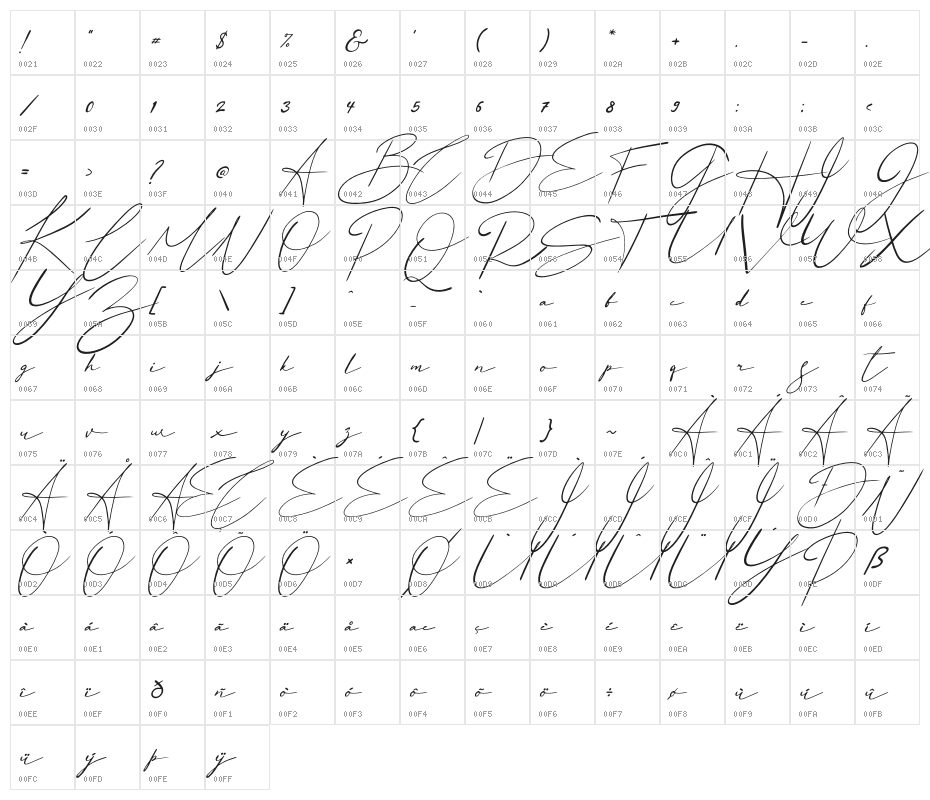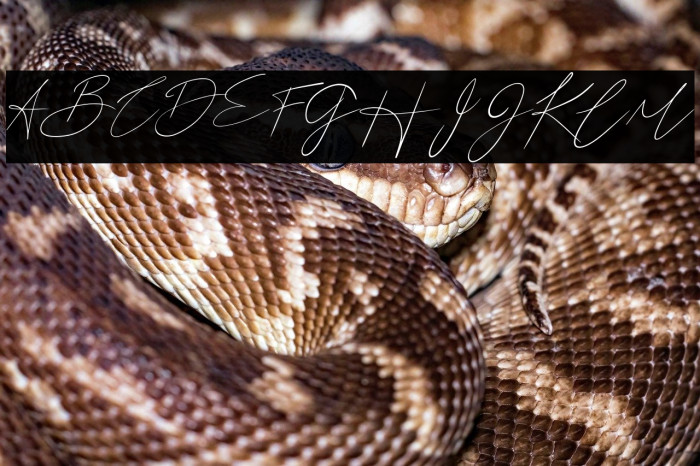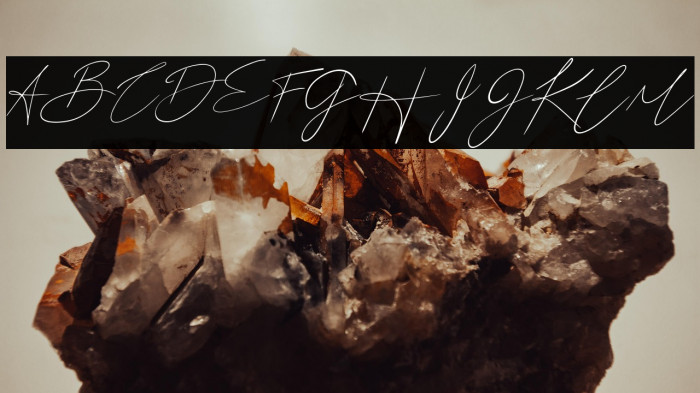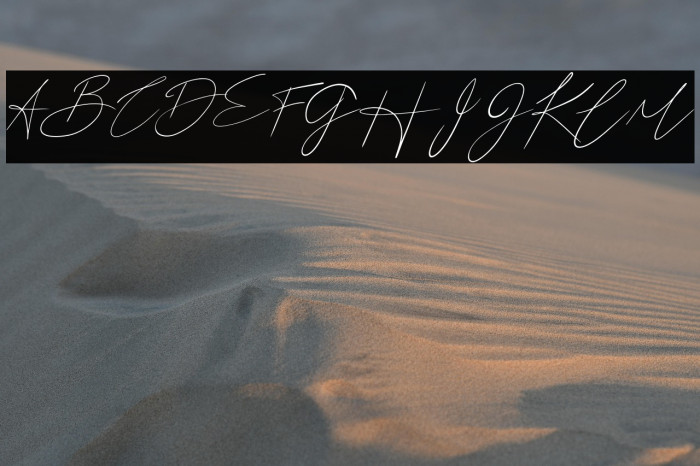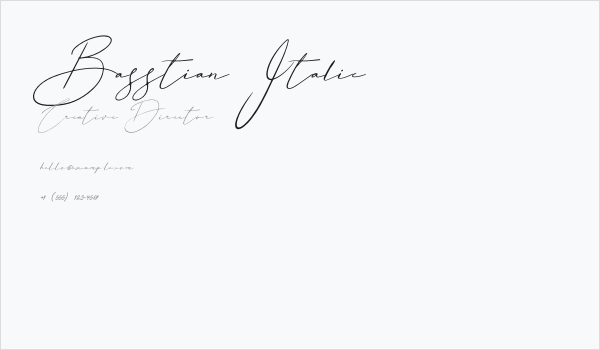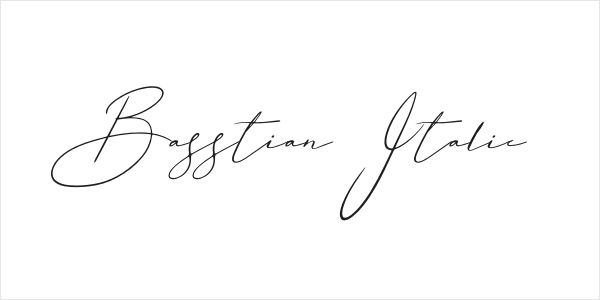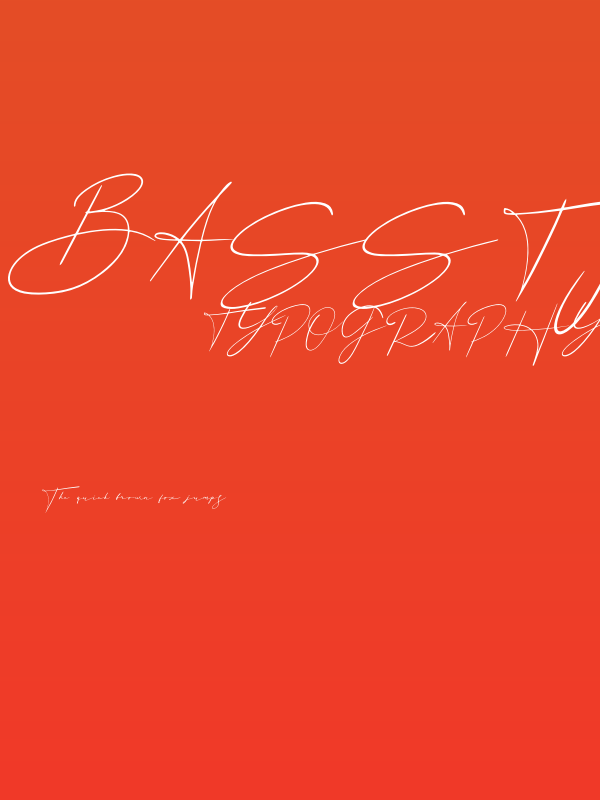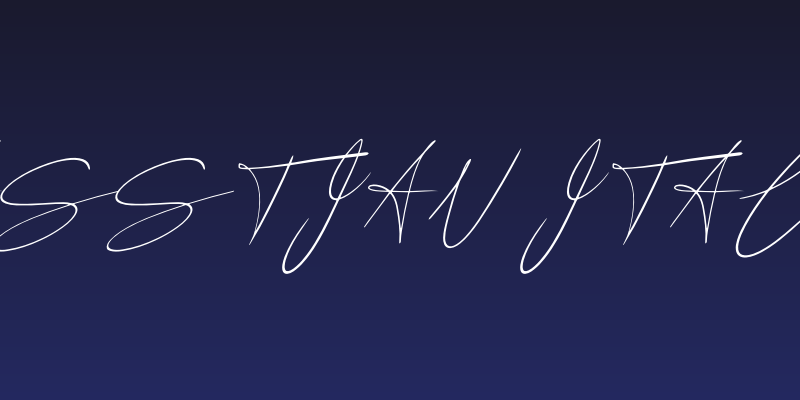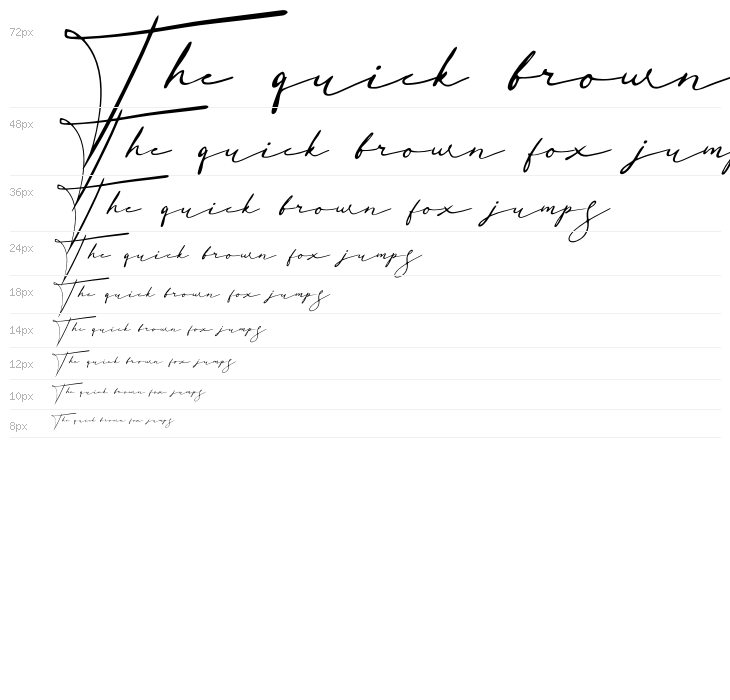
Basstian Italic Font
Basstian Italic Description
This font features an elegant and flowing script style, characterized by its smooth, cursive strokes that mimic the fluidity of handwriting. The uppercase letters are slightly more elongated and connected, while the lowercase letters maintain a consistent and graceful flow. The numerals and special characters are designed to complement the overall script style, adding a touch of sophistication. The font's delicate curves and thin lines give it a refined and stylish appearance, making it suitable for projects that require a personal and artistic touch.
| Overall Style | Elegant, Handwritten |
| Proposed Projects | Ideal for wedding invitations, greeting cards, personal branding, and elegant packaging designs. |